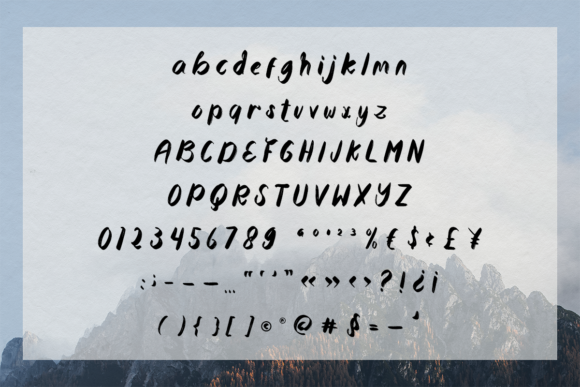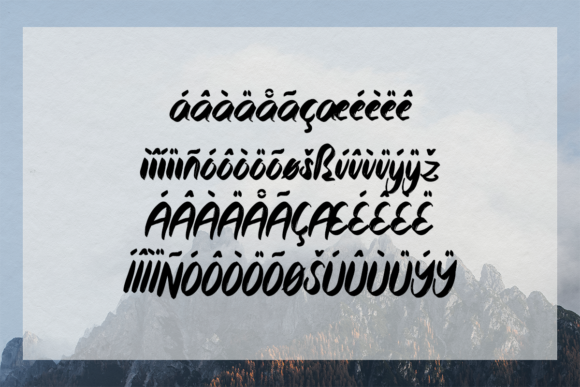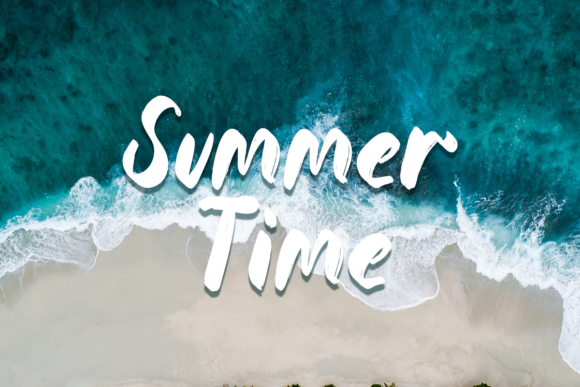
Introduction to Montego Bay Font
Montego Bay is a lovely paint brushed script font.
It has a friendly and modern look that can be used for logos, branding, invitations, stationery, wedding designs, social media posts, and much more .
Key Features of Montego Bay Font